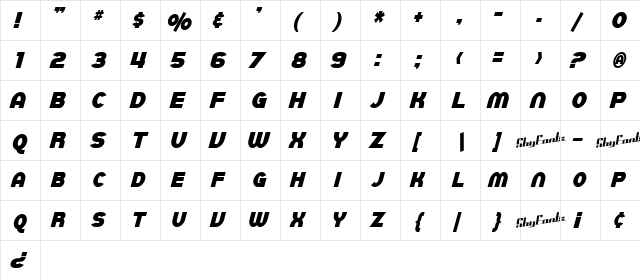
SF Juggernaut Condensed Bold Italic Font Preview
Design Context for SF Juggernaut Condensed Typeface
SF Juggernaut Condensed takes a measured approach to typography — its balanced proportions and neutral character make it a reliable workhorse for both digital and print work. Its italic angle brings a sense of urgency and motion to the letterforms. The heavy weight commands attention and anchors typographic hierarchies. Its narrow stance lets it pack a punch even in space-constrained designs.